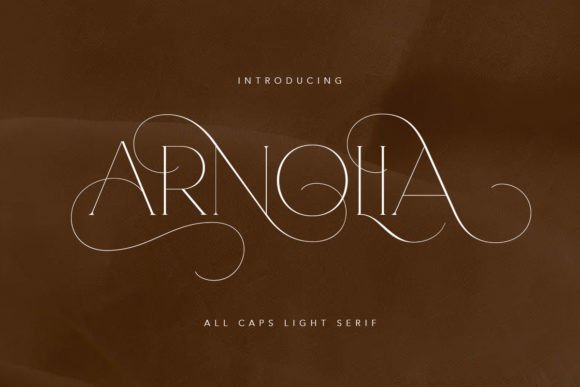
The Elegance of Arnolia Font: A Designer’s New Best Friend
I still remember the last time I was working on a project, and I just couldn’t seem to find the right font. My client wanted something classy and elegant, but everything I tried looked either too bland or too over-the-top. That’s when I stumbled upon Arnolia Font, a modern all-caps serif font that has since become my go-to for projects that demand a touch of sophistication.
An Honest Review of Arnolia Font
- ✨ Unique Curves: Arnolia’s distinctive curves make it stand out from more traditional serif fonts. It’s perfect for projects where you want to make a statement.
- ✅ Classy and Elegant: This font screams luxury and sophistication. It’s ideal for high-end branding, invitations, and quotes.
- 💡 Versatile: With a range of alternates and OpenType features, Arnolia can be used in a variety of contexts, from logos to headlines.
While Arnolia is an excellent font, there are a few things to keep in mind:
- 🤔 Limited Lowercase: As an all-caps font, Arnolia doesn’t have a traditional lowercase set. This might limit its use in certain projects.
- ⚠️ Glyph Overload: With so many alternates and stylistic options, it can be overwhelming to navigate the glyph panel. Take some time to get familiar with the font’s features.
The Backstory of Arnolia Font
Arnolia was designed with the intention of creating a modern, elegant serif font that would cater to designers looking for something unique. Inspired by classic typography and infused with contemporary flair, Arnolia’s creator aimed to produce a font that would add a touch of class to any project. Whether it’s used for branding, invitations, or quotes, Arnolia’s distinctive curves and extensive feature set make it an excellent choice.
Q: What makes Arnolia unique?
A: Arnolia’s unique curves and extensive set of alternates and stylistic options make it stand out from more traditional serif fonts.
Q: Is Arnolia suitable for body text?
A: While Arnolia is stunning for headlines and titles, its all-caps design might not be ideal for extensive body text. Consider using it for headings and pairing it with a complementary font for body text.